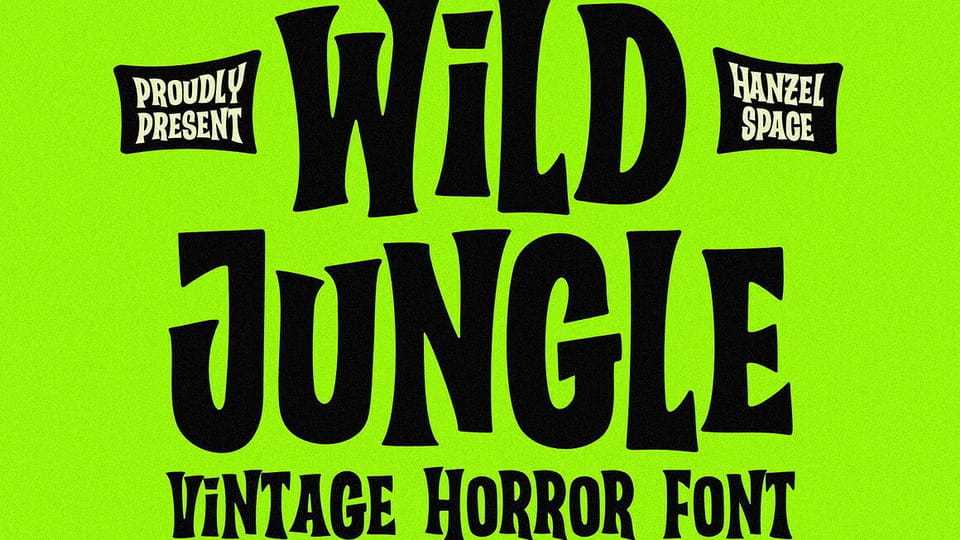
Download Wild Jungle font, a horror style typeface that has thick and irregular characters so it looks natural. This type of font perfectly made to be applied especially in logo, headline, signage and the other various designs.